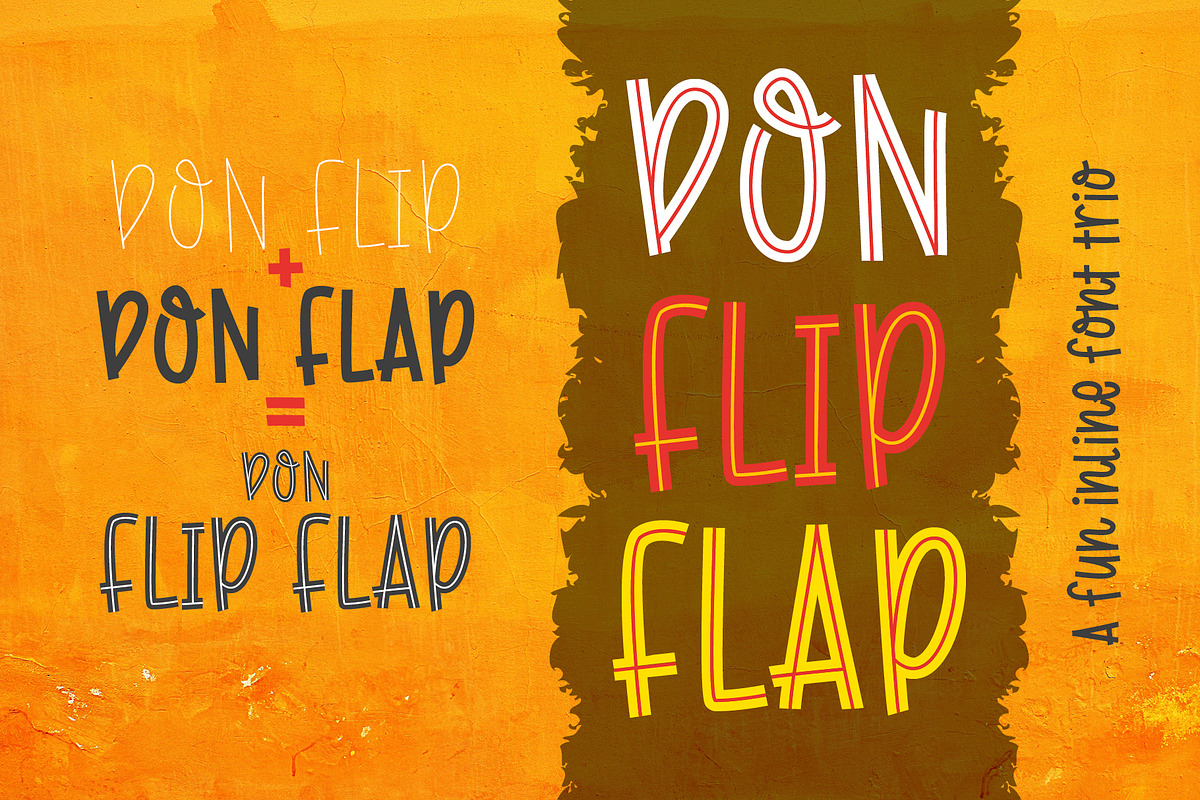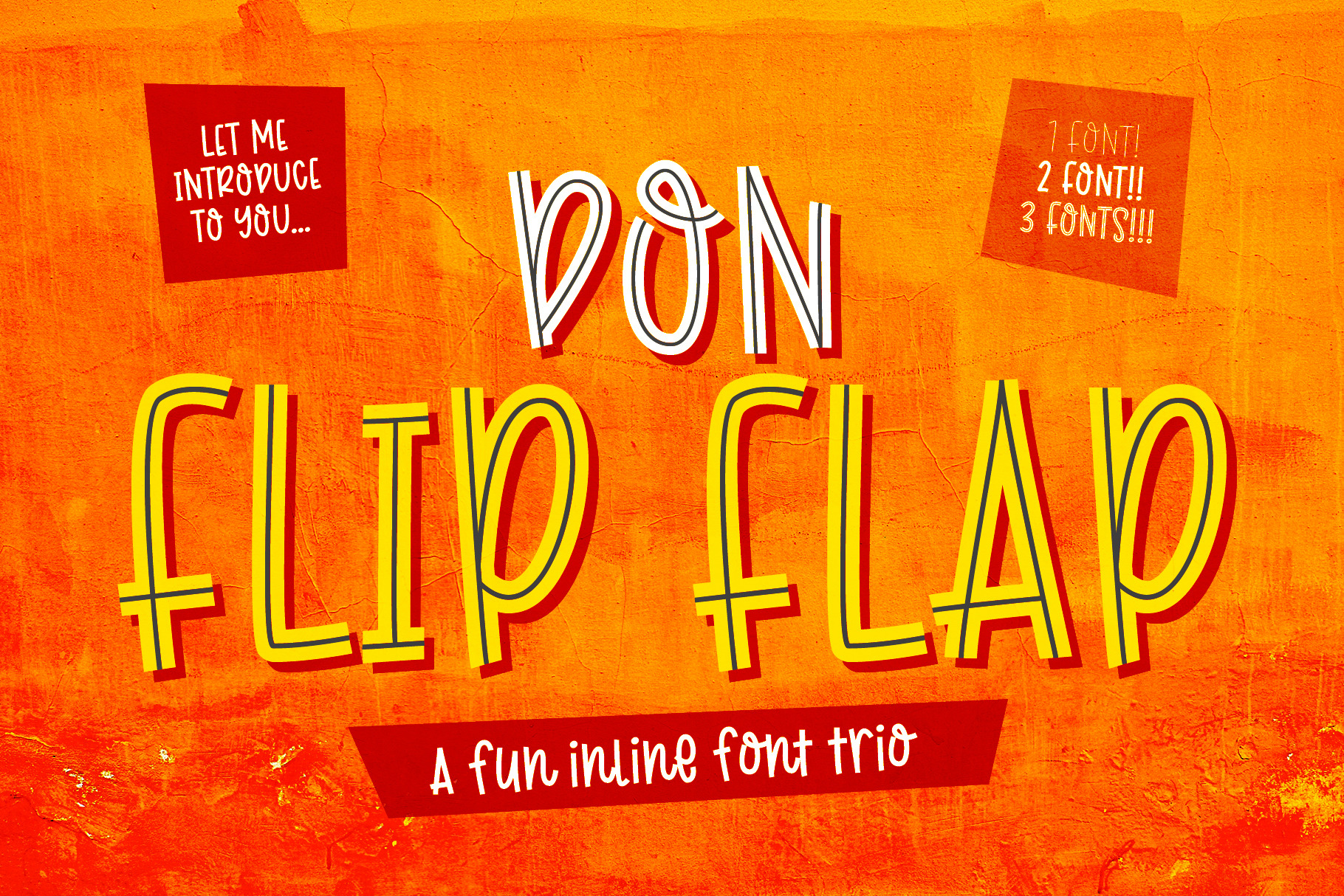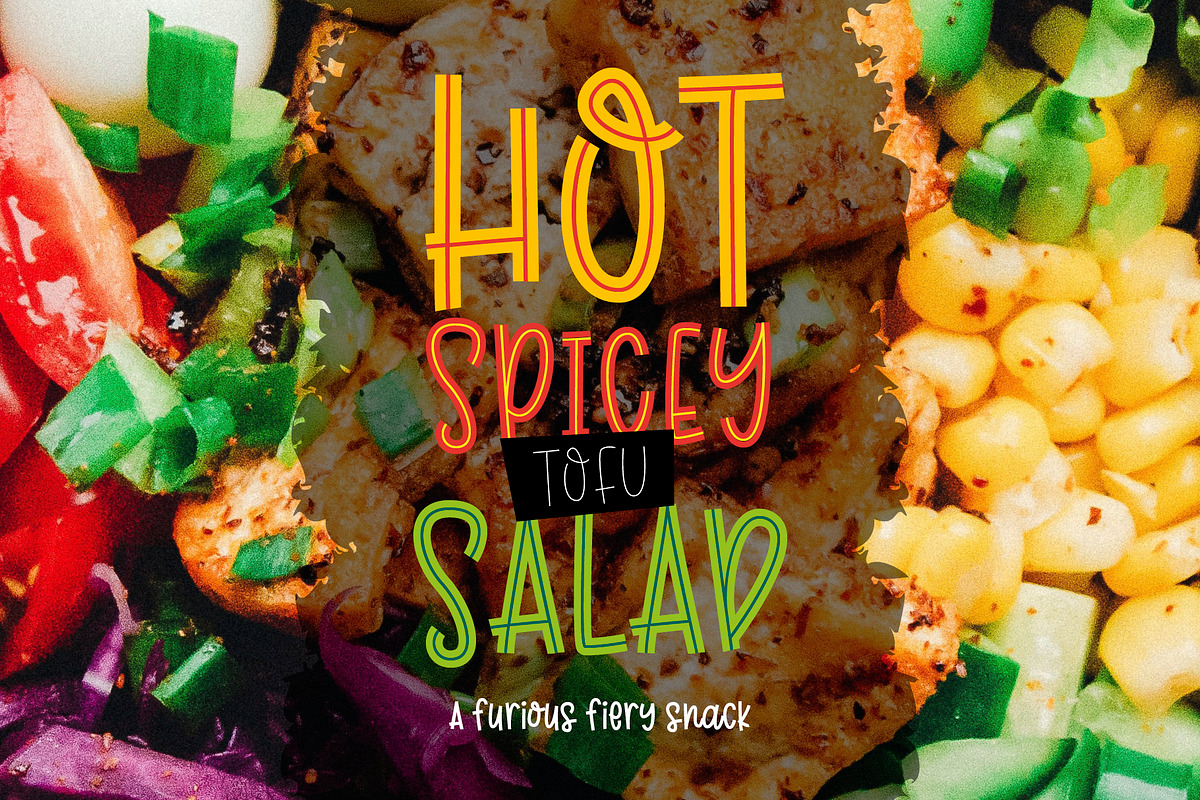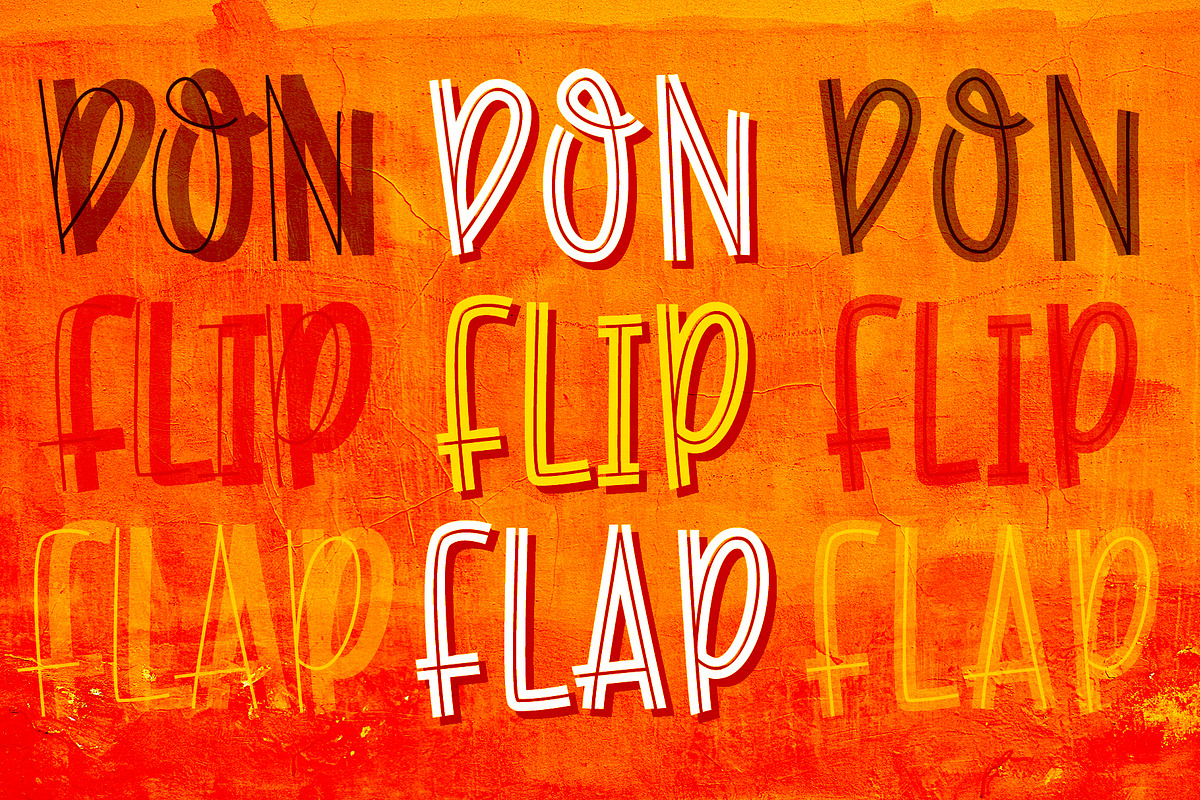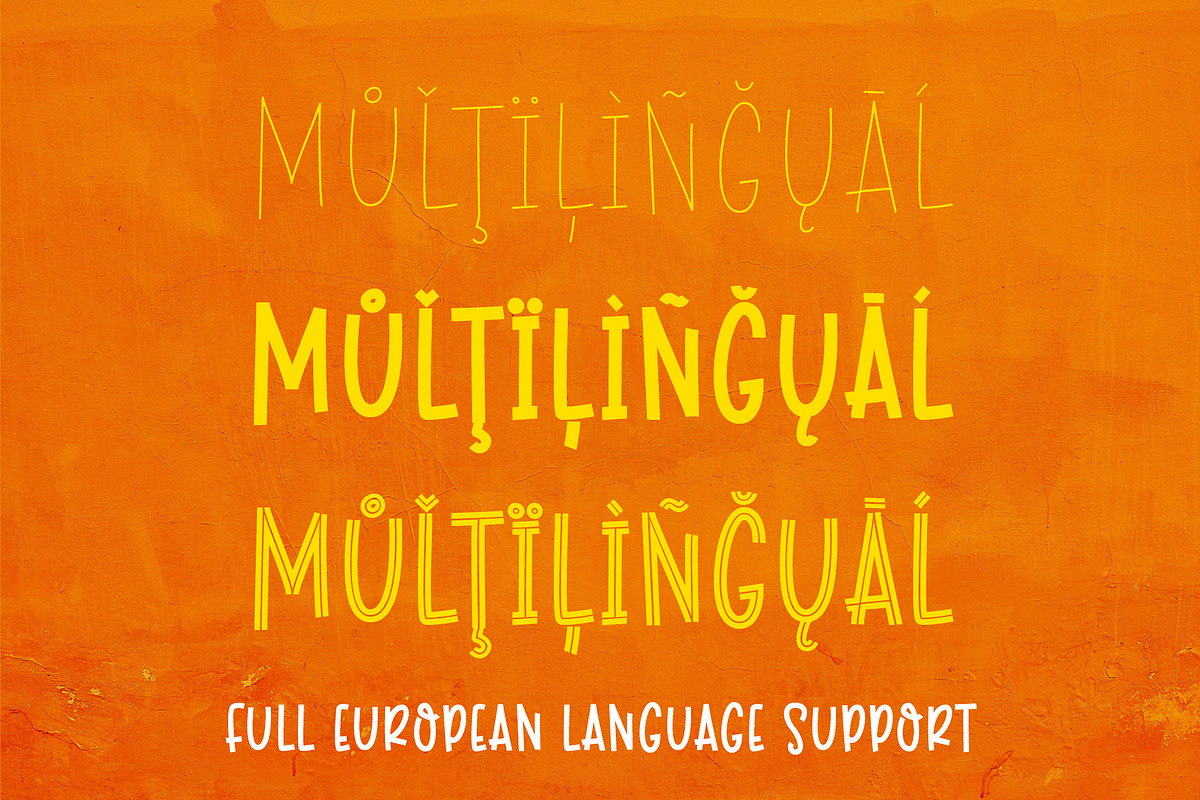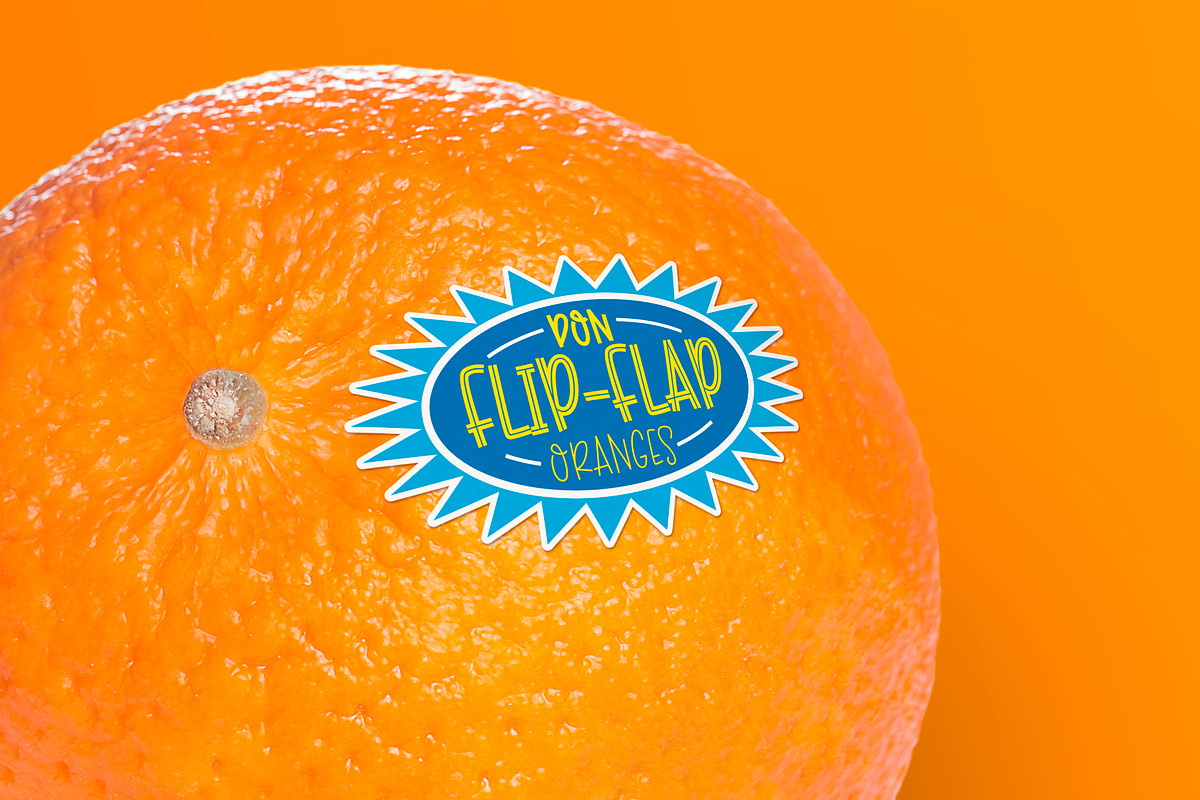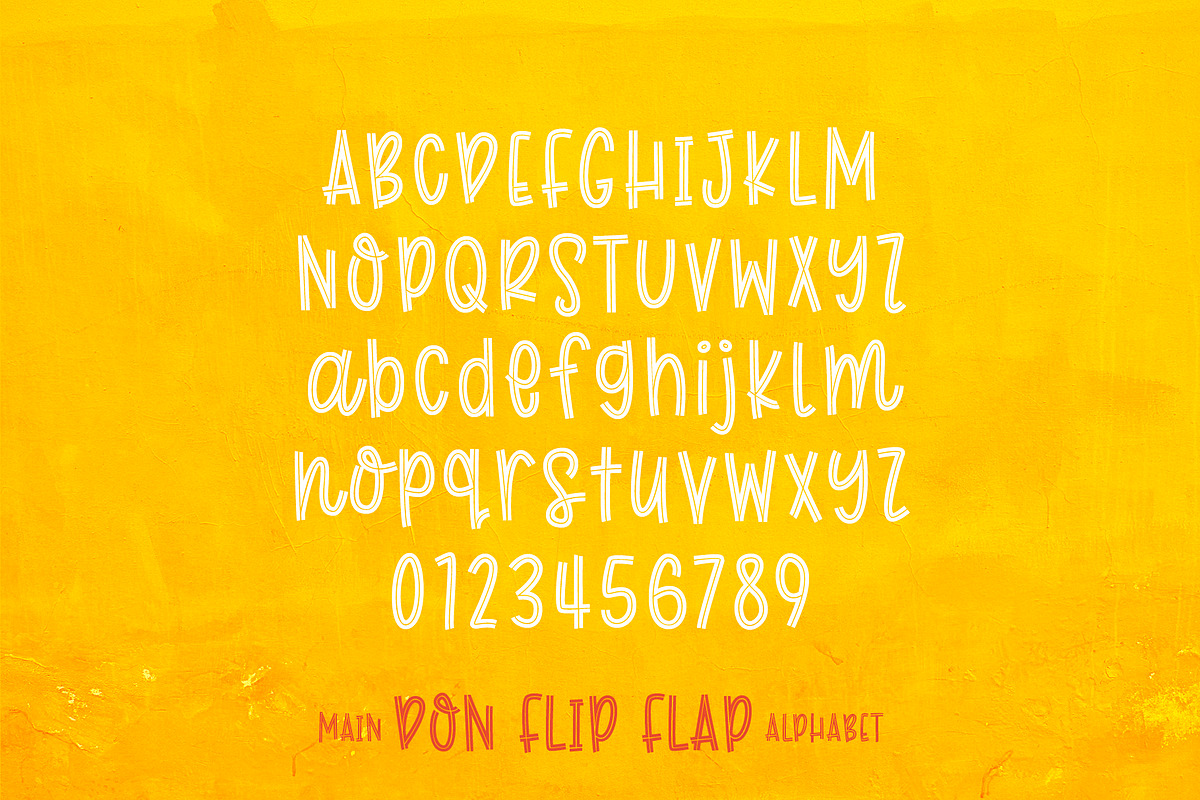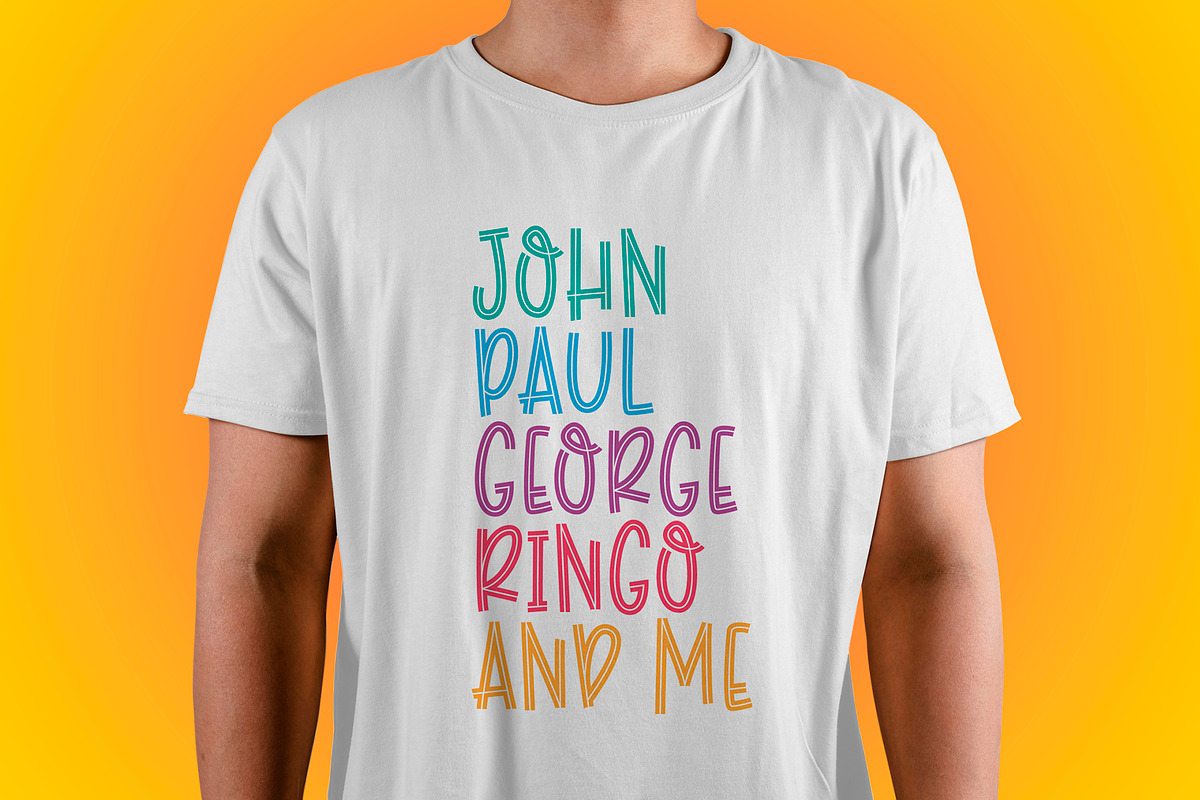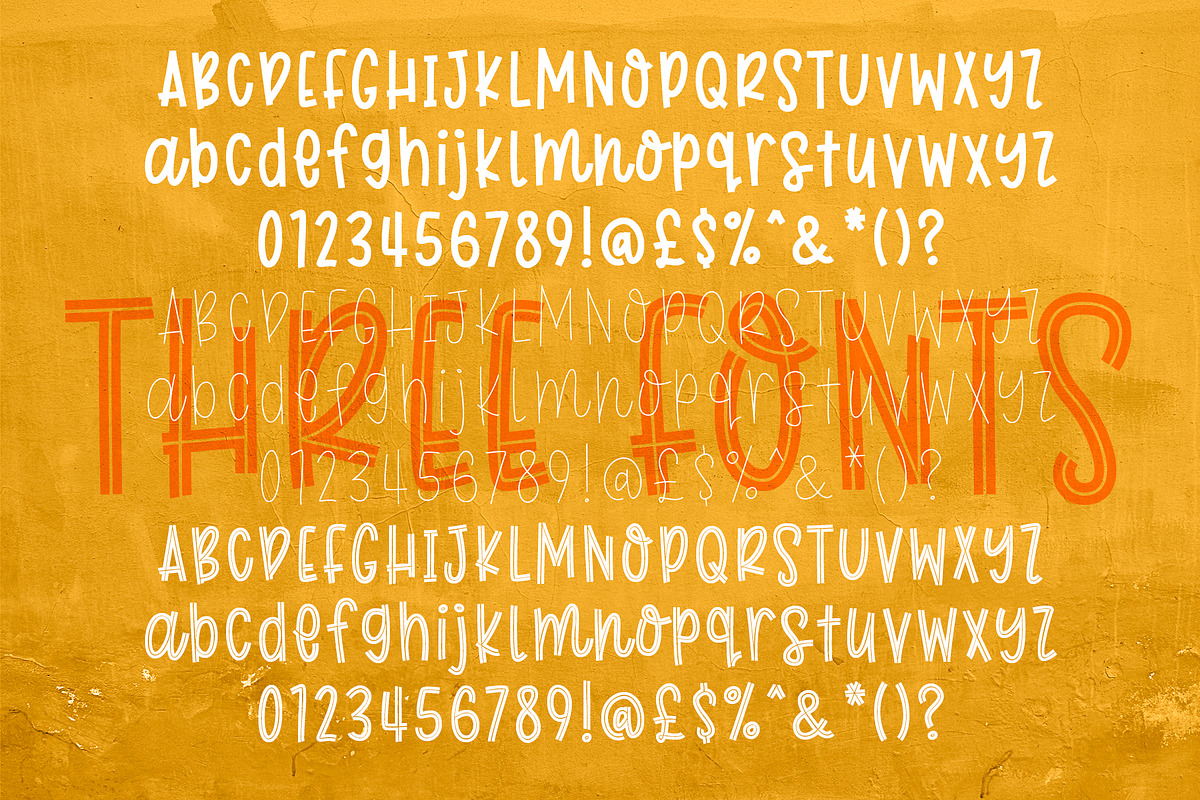
Don Flip Flap - fun inline font trio
Please let me introduce to you, Don Flip Flap, a BIG FUN, BIG IMPACT font!
Don Flip Flap is an inline font trio. A hard nosed font with a stiff spine. Fun, extravagant and distinctive, it is handwritten and bold, in a slightly comic or cartoon style. Three fonts in one. Perfect for adding a little bit of spice to your designs. Great for branding, logos, fun headlines and quotes. The simple lines and clean nodes make it ideal for crafting too!
Don Flip is a skinny line font, Don Flap is a fat bold style and Don Flip Flap is the complete inline version.
Don't mess with the Don Flip Flap! (Or maybe do?)